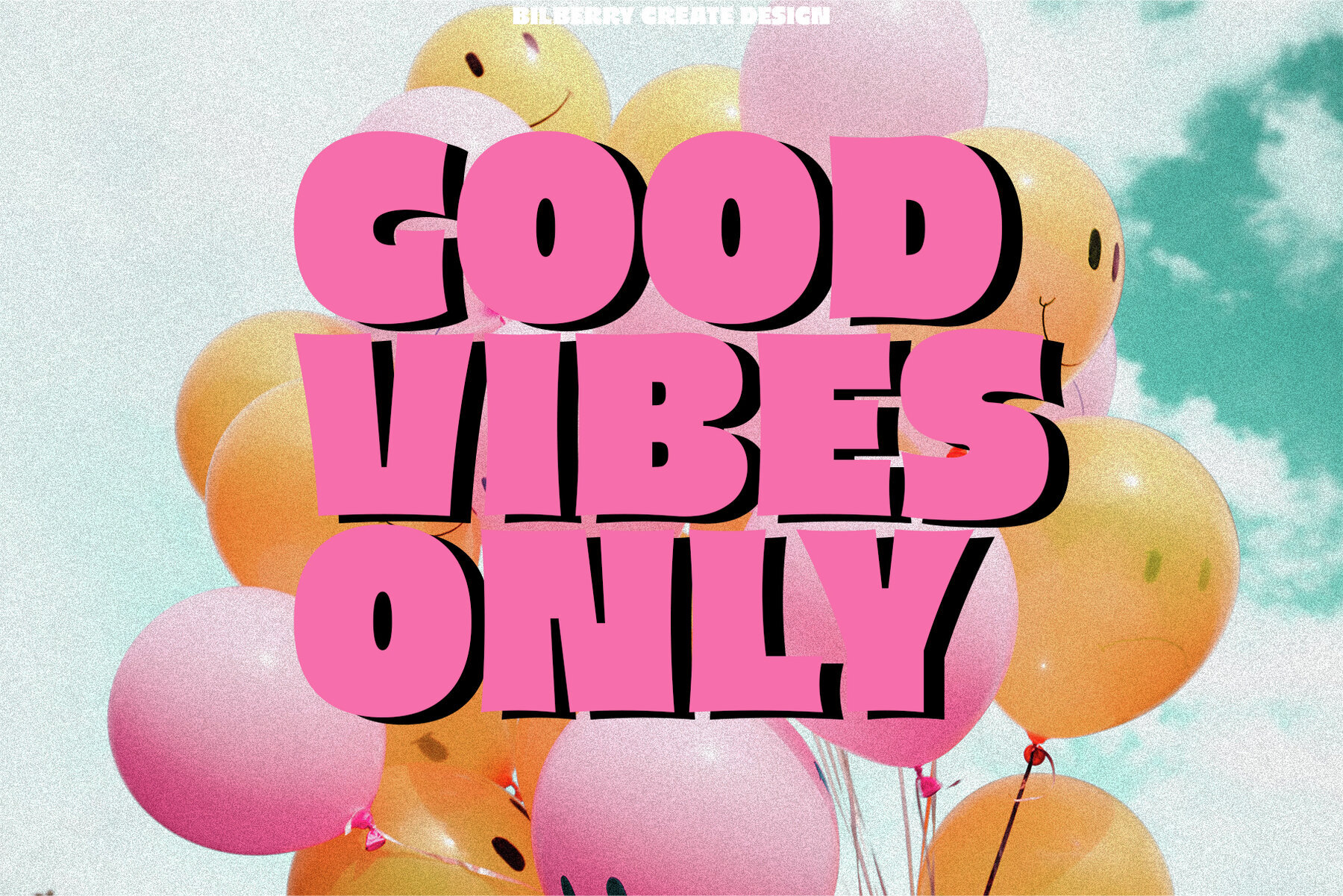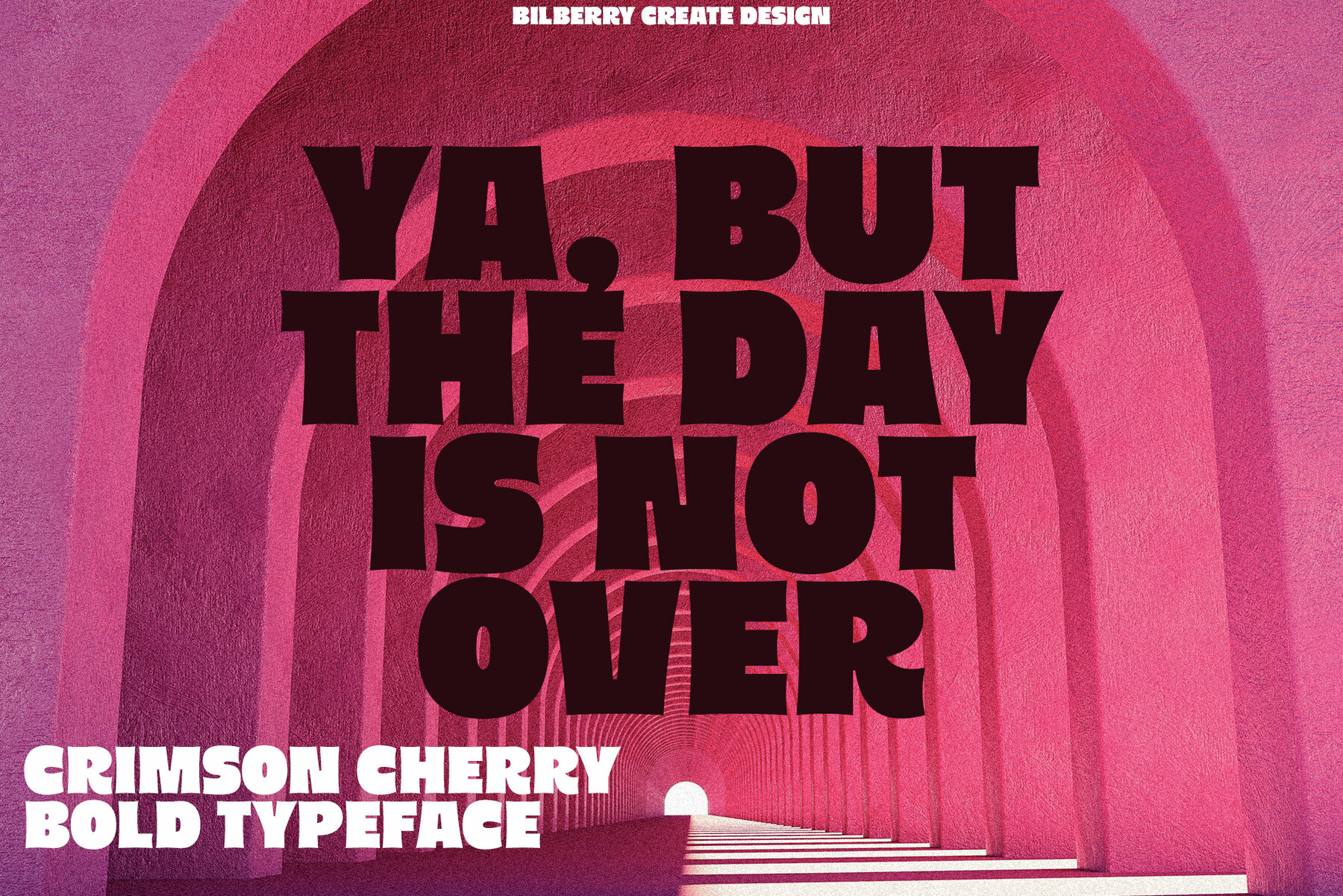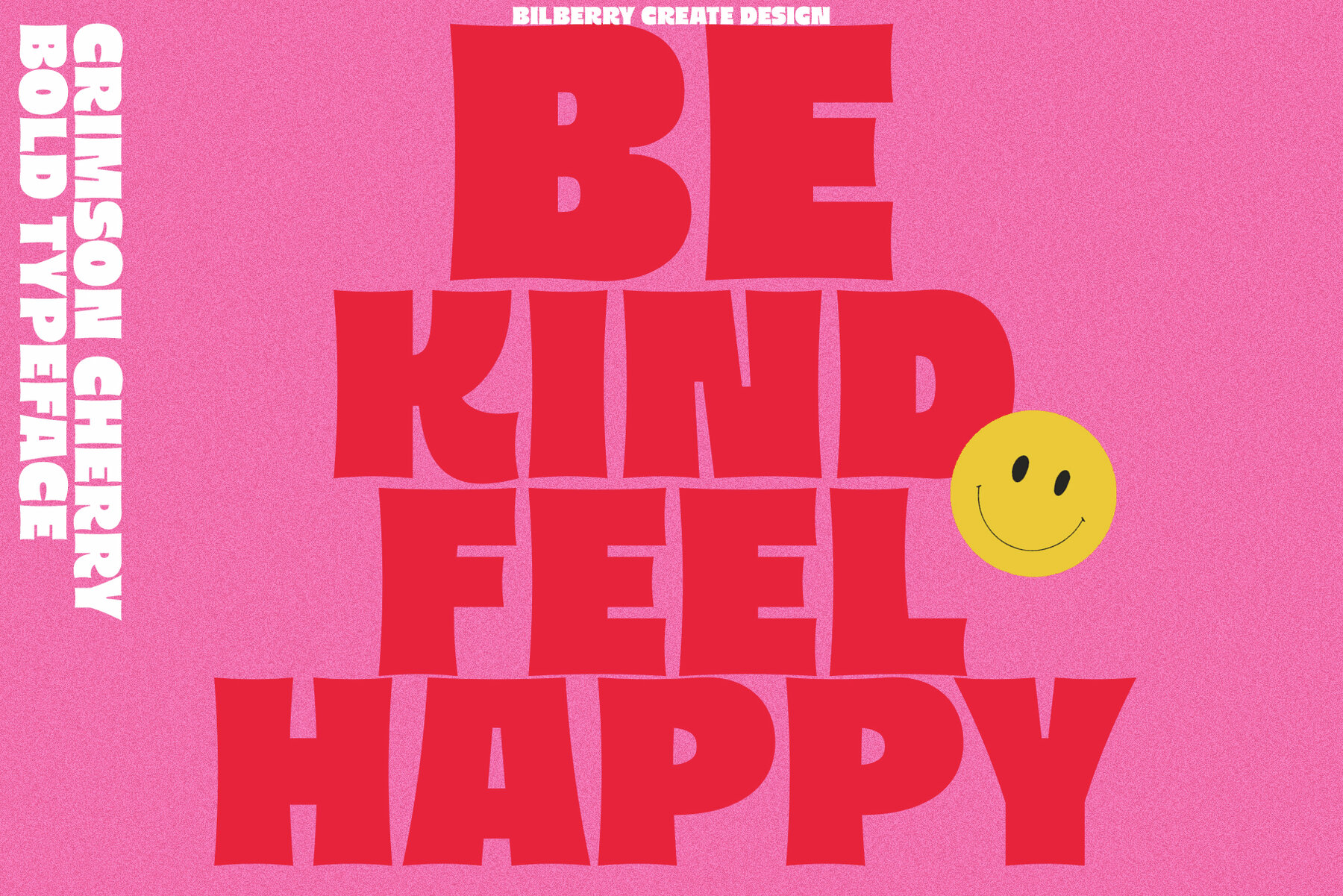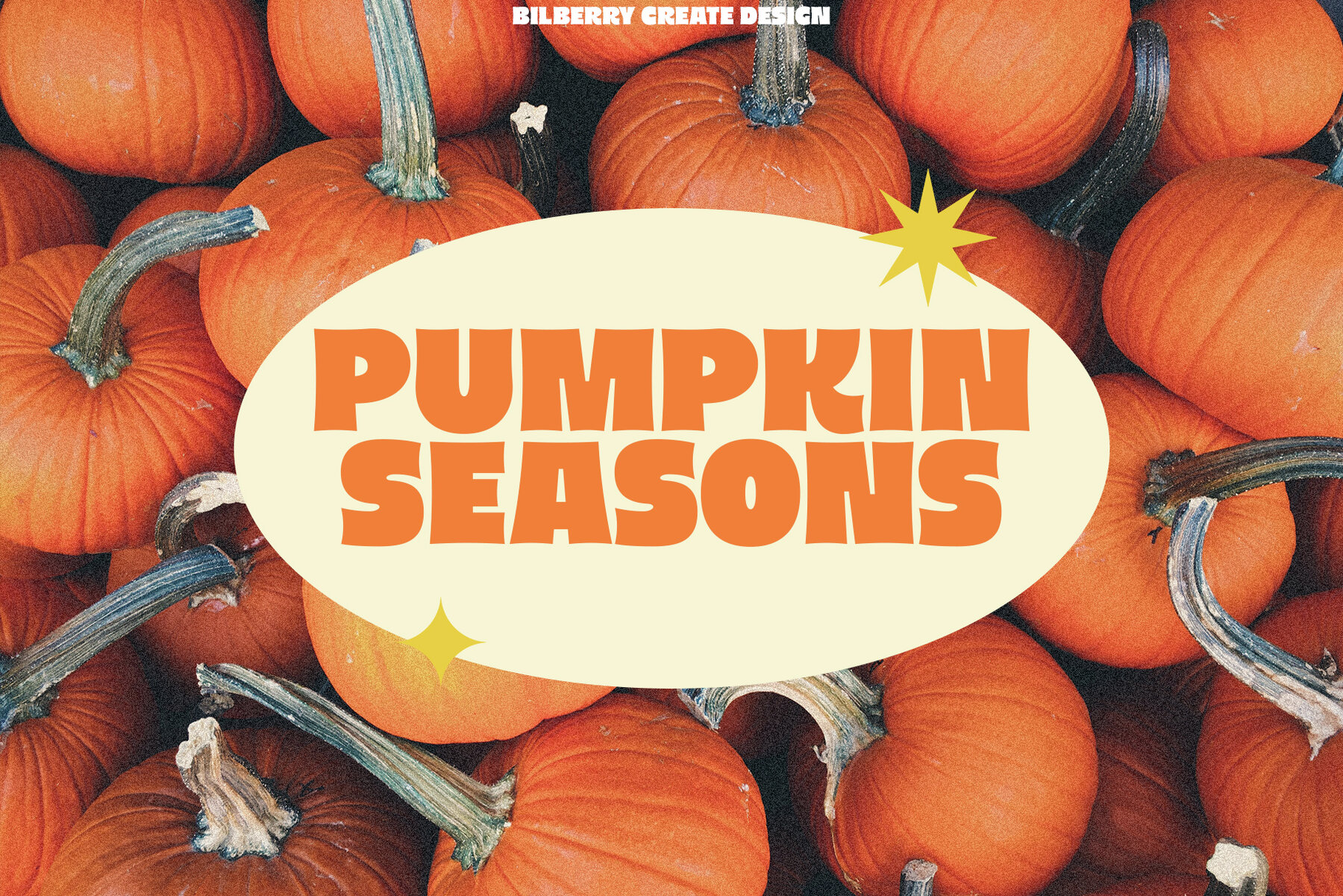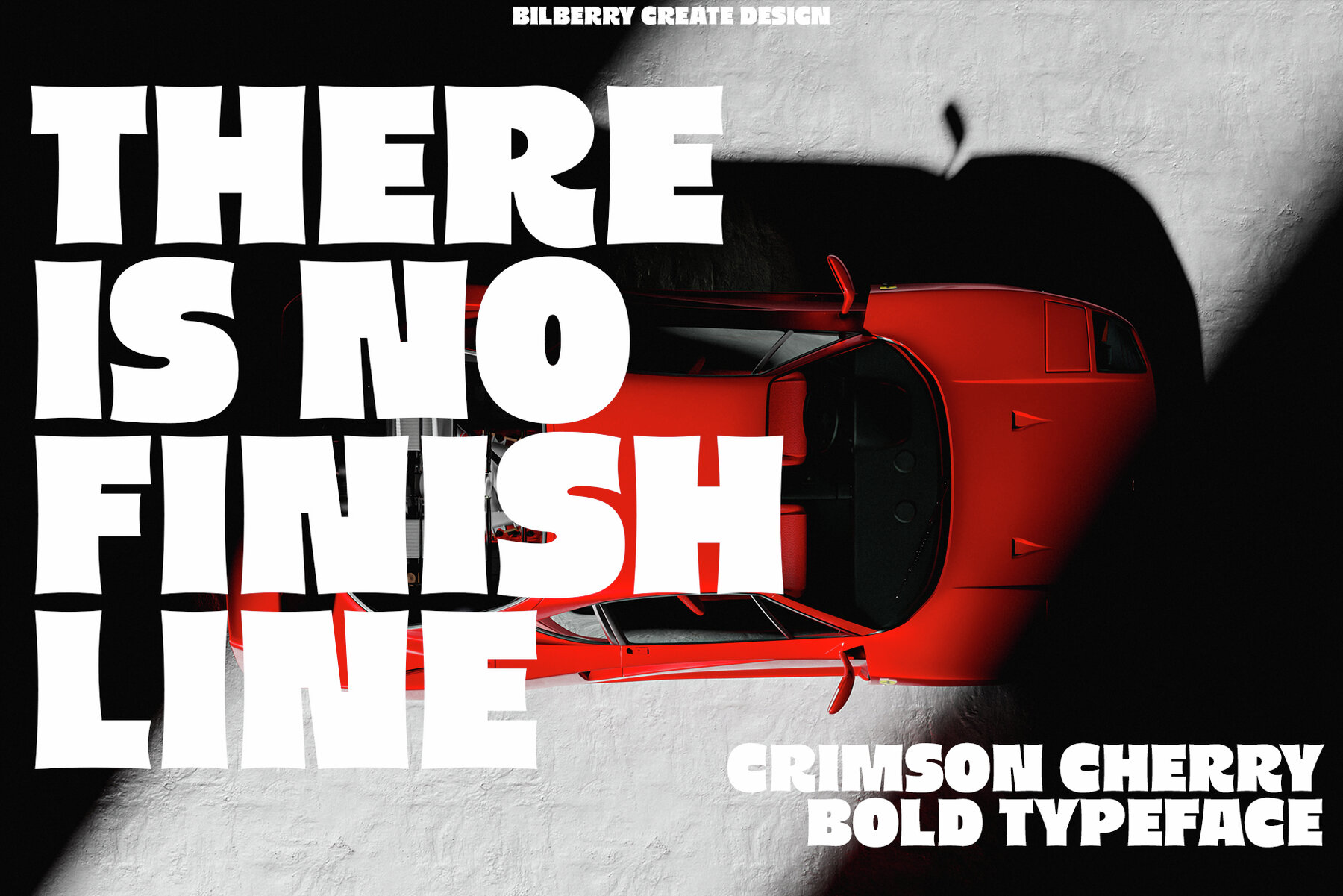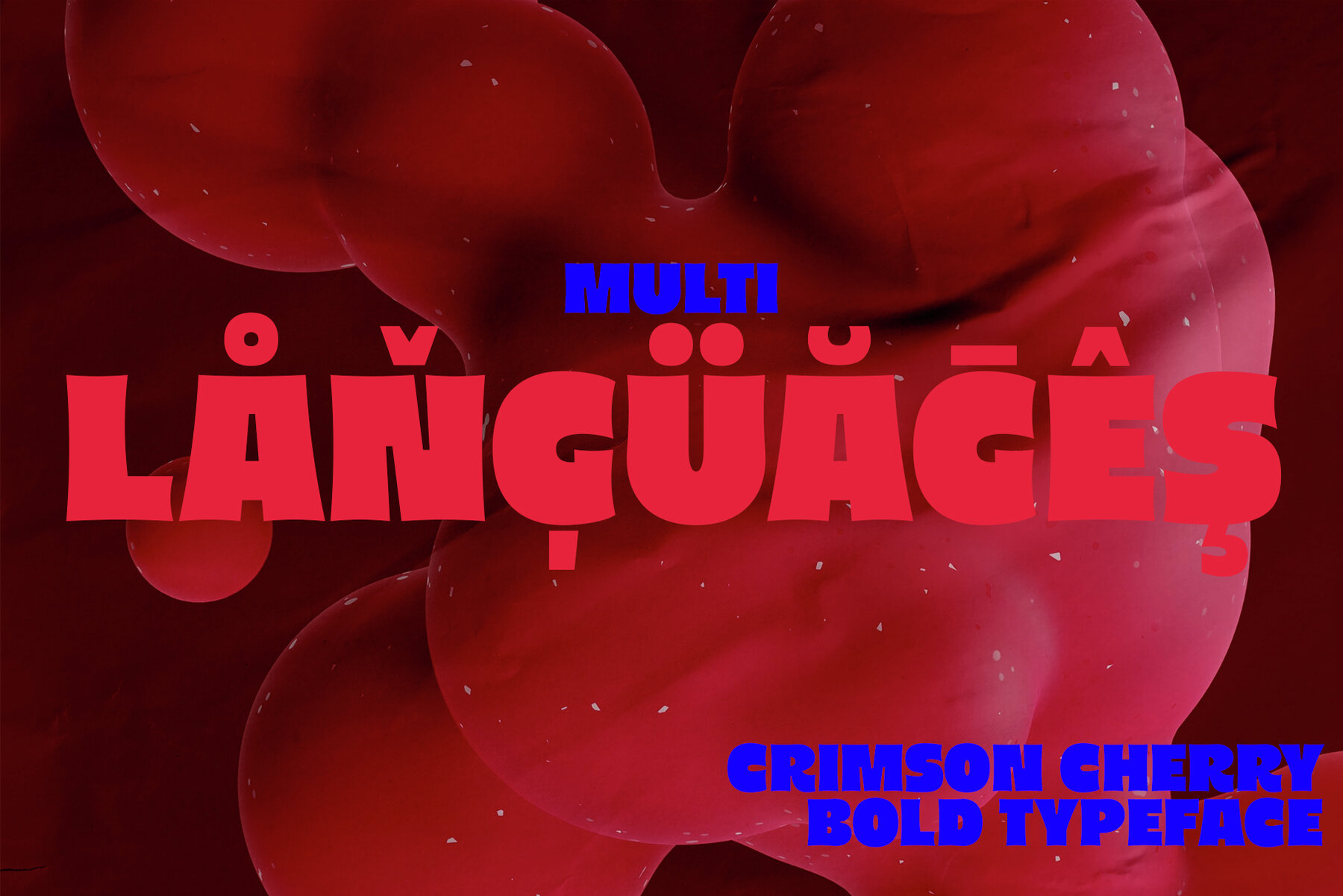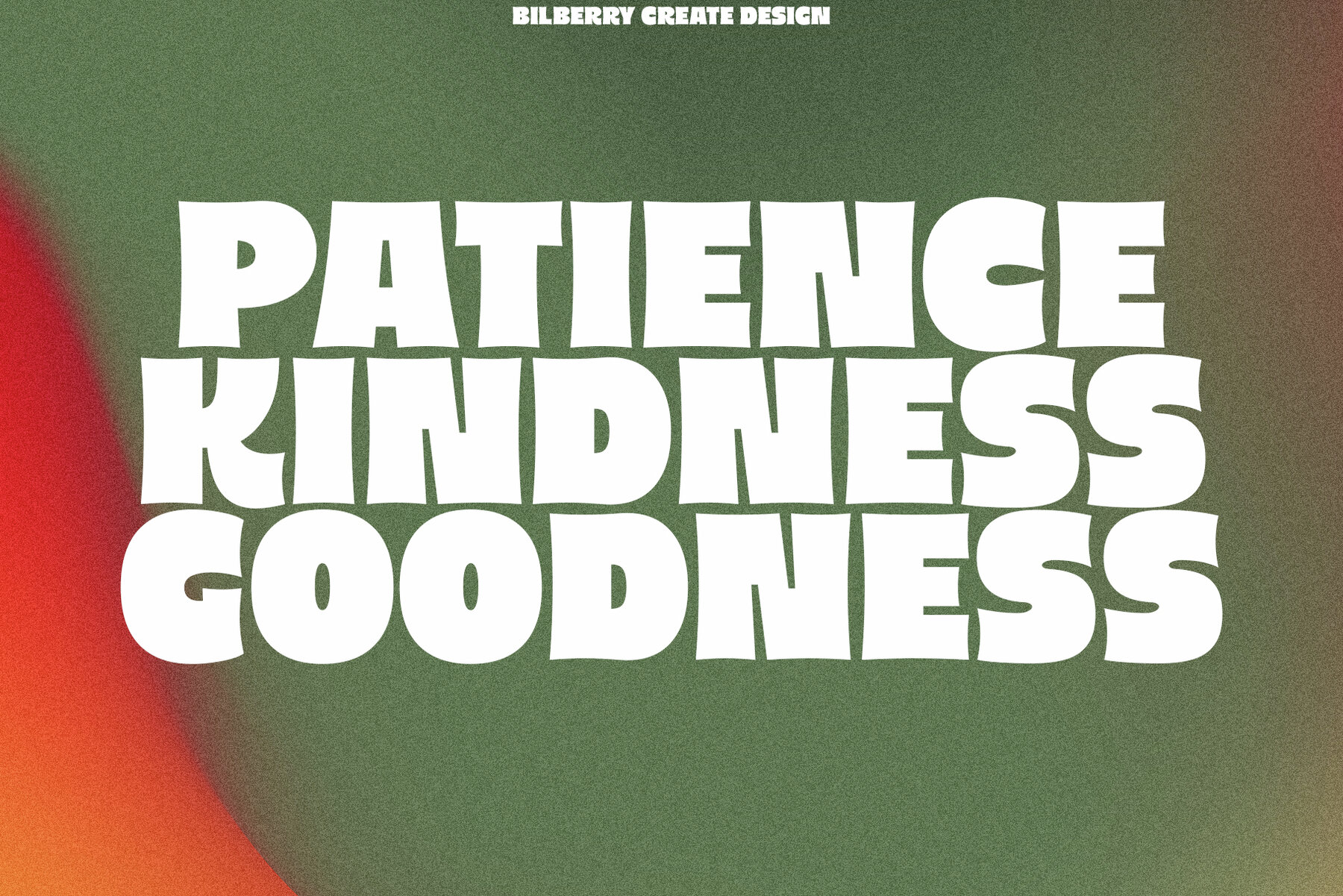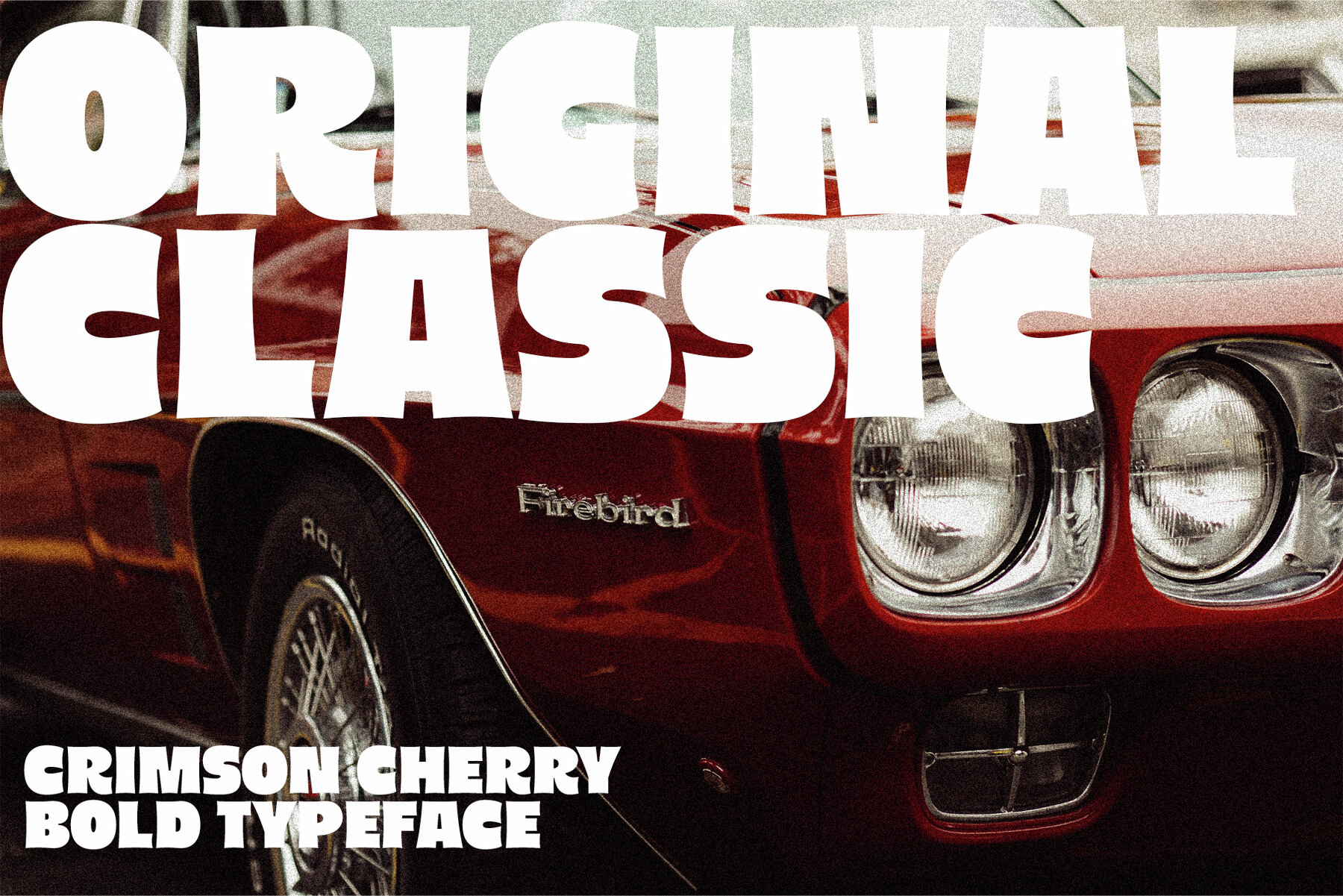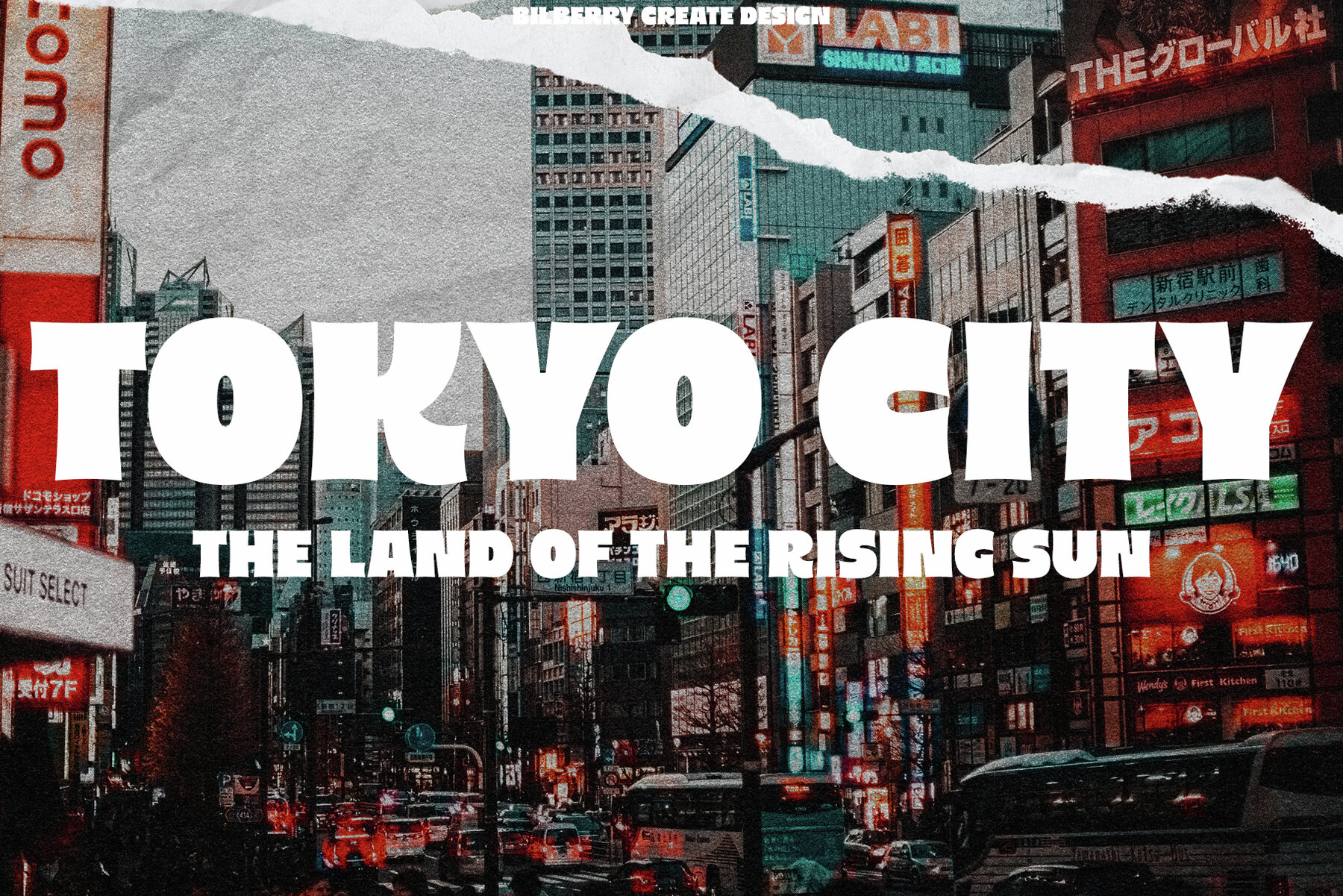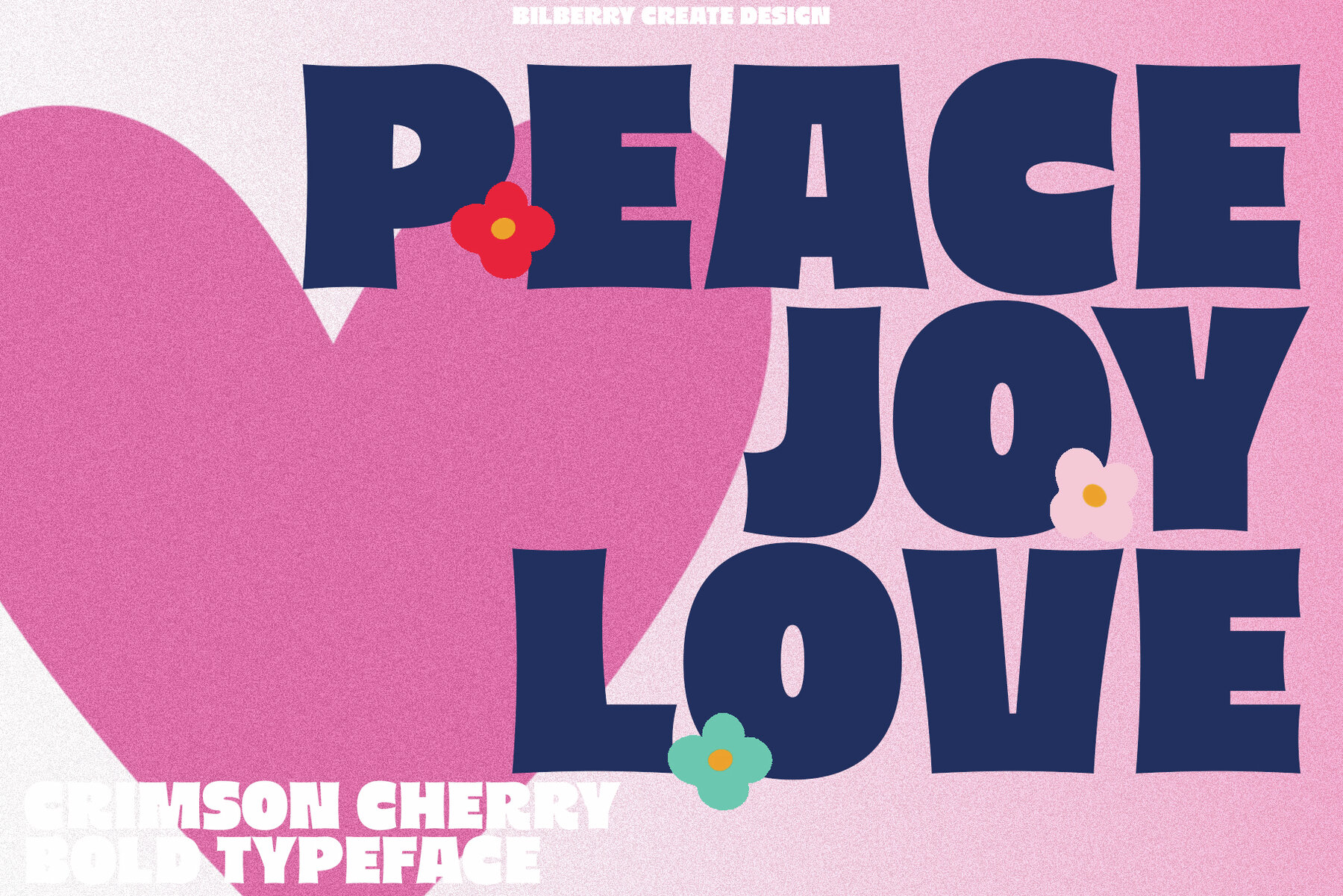
Crimson Cherry Font
Crimson Cherry Regular
This is a bold, condensed sans-serif typeface that offers a strong visual impact with its thick, block-like letterforms and tight spacing. It is ideal for headlines, posters, and any project that requires a condensed display font with a contemporary feel. The stencil-like cuts and edgy geometry of the characters give it an urban and dynamic vibe that is sure to attract attention.